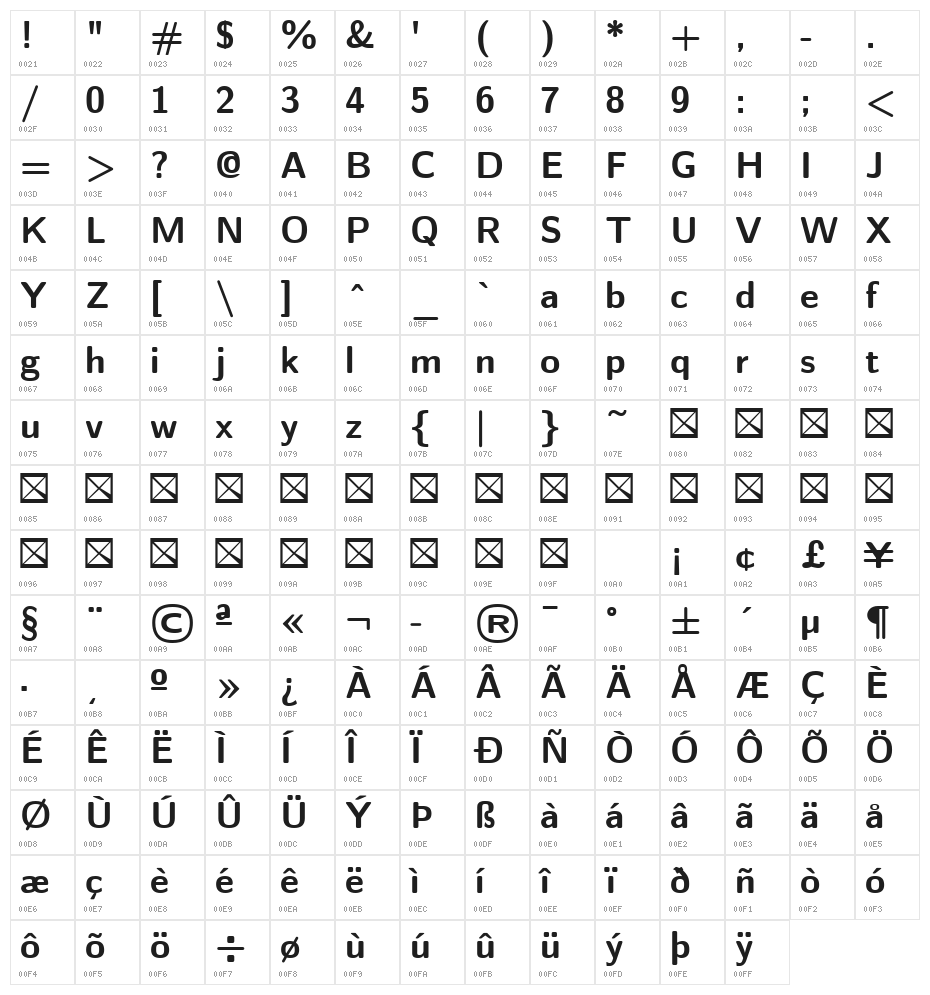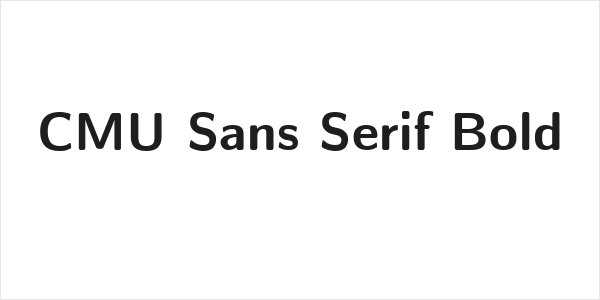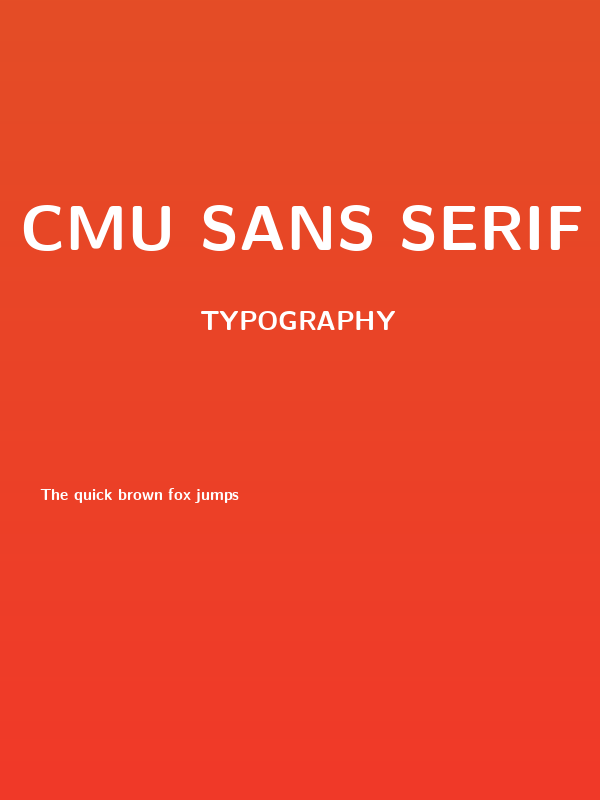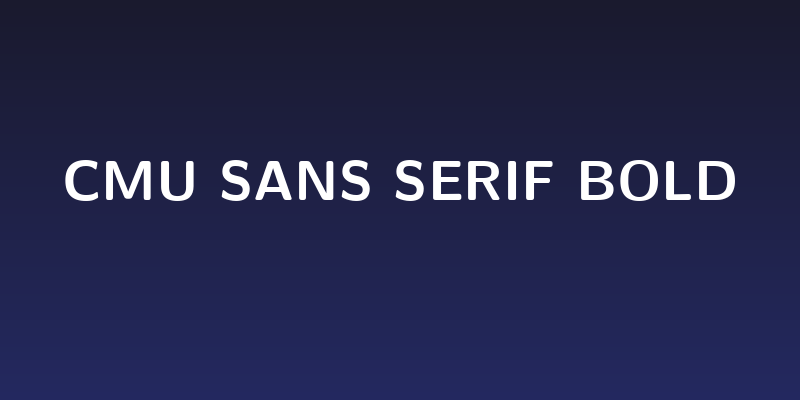
CMU Sans Serif Bold Font
CMU Sans Serif Bold Description
This typeface features a clean and modern sans-serif design, characterized by its bold weight and uniform stroke width. The letters are well-proportioned with a consistent height, making it highly legible. The uppercase letters are slightly taller than the lowercase, providing a clear distinction. The numerals are designed to align perfectly with the uppercase letters, ensuring a cohesive look. Special characters are included, maintaining the same bold and clear style. This font is versatile, suitable for a variety of digital and print applications.
| Use Case | Headlines, Logos, Digital interfaces |
| Proposed Projects | Ideal for branding, headlines, posters, and digital interfaces where clarity and impact are essential. |